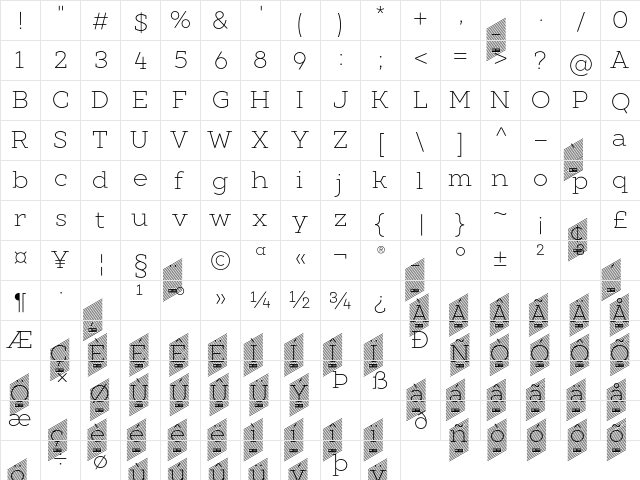
XXII Geom Slab DEMO Light
| Foundry | Doubletwo Studios |
| Designer | Lecter Johnson |
Design Context for XXII Geom Slab DEMO Typeface
XXII Geom Slab DEMO combines the readability of serif typography with the visual weight of a slab construction, resulting in a typeface that feels both authoritative and approachable. Its slender proportions lend an understated elegance to any composition.
Works well in editorial design, news publishing, impactful branding, and poster typography.
Pro Tip: Try XXII Geom Slab DEMO set tight in headlines for a classic editorial feel. Its slab serifs create strong horizontal rhythm that anchors a page layout.